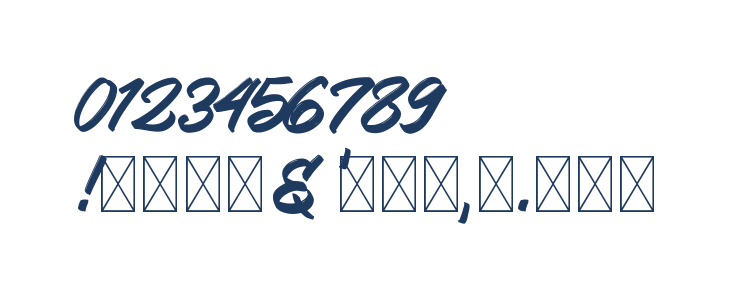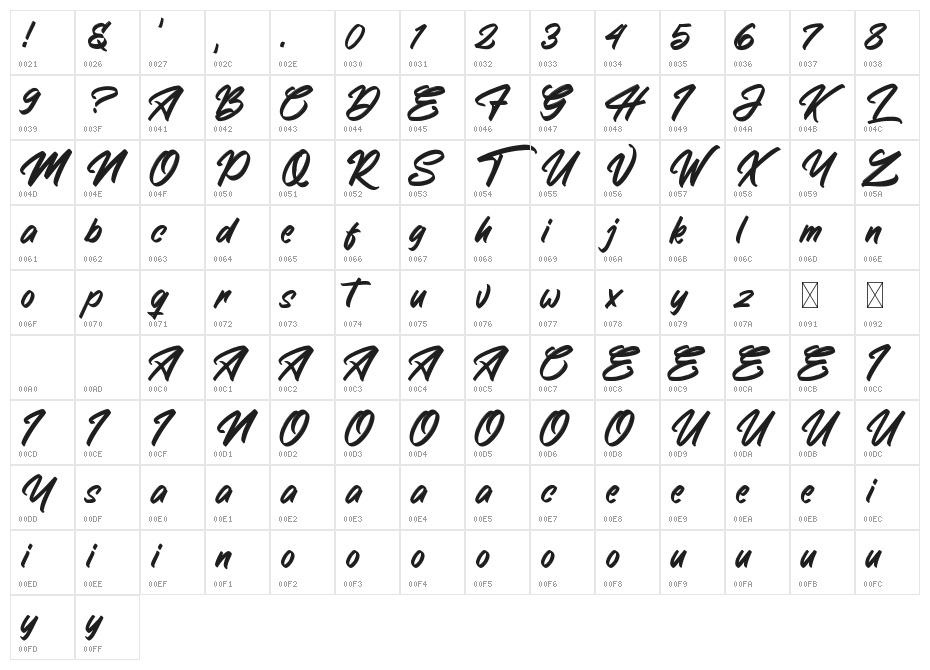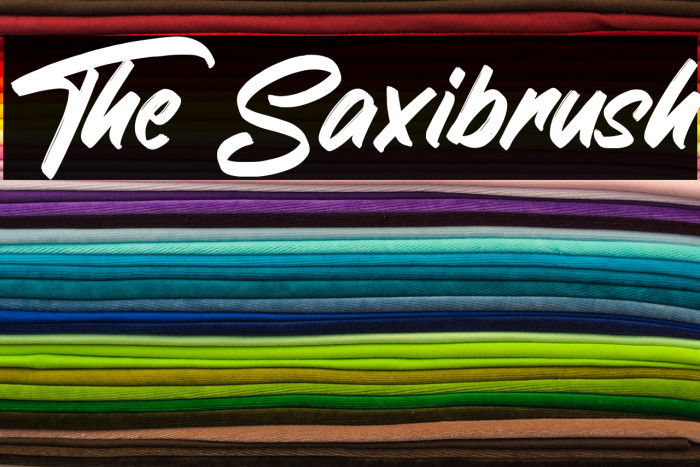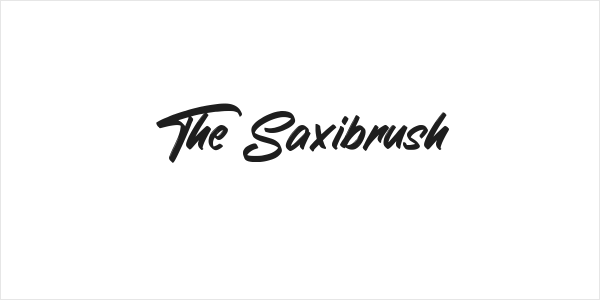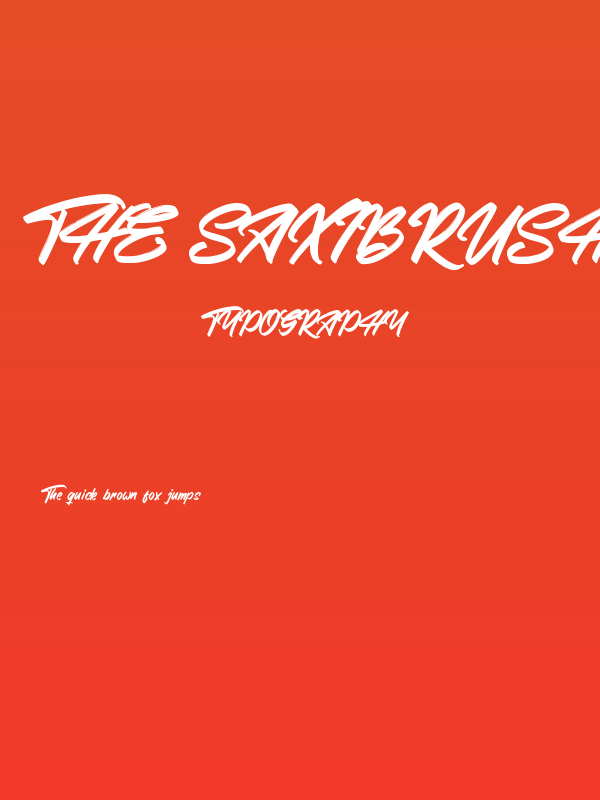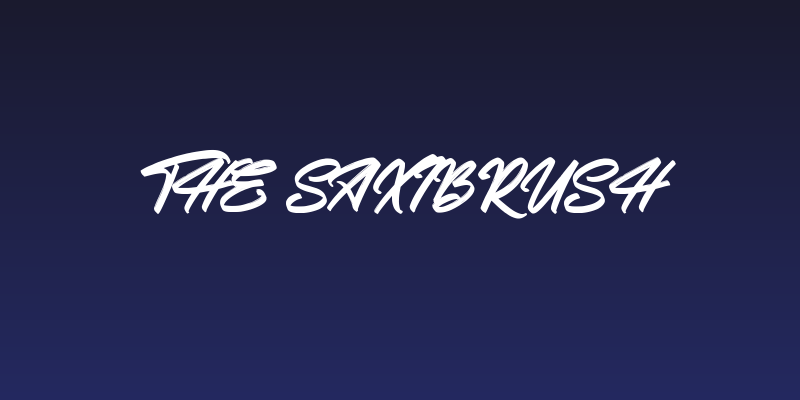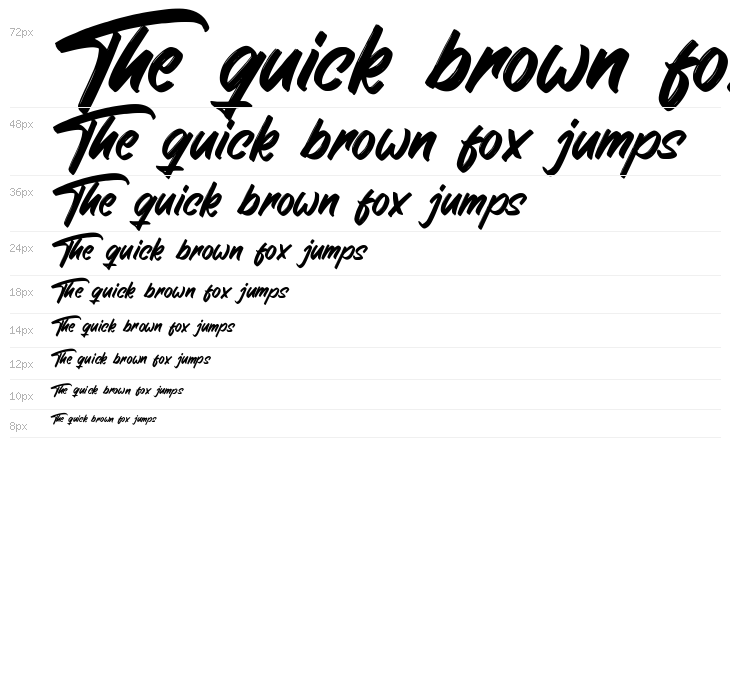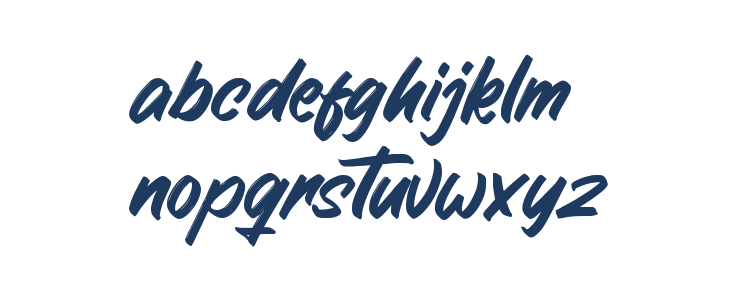
The Saxibrush Font
The Saxibrush Description
This font features a bold, expressive brush script style that conveys a sense of energy and movement. Each character is crafted with a dynamic, flowing stroke that mimics the natural motion of handwriting. The letters are slightly slanted, enhancing the impression of speed and fluidity. The uppercase and lowercase letters maintain a consistent style, with rounded edges and a playful, artistic flair. The numbers and special characters are equally bold and maintain the same brush-like quality, ensuring a cohesive look across all text. This font is perfect for projects that require a personal, creative touch.